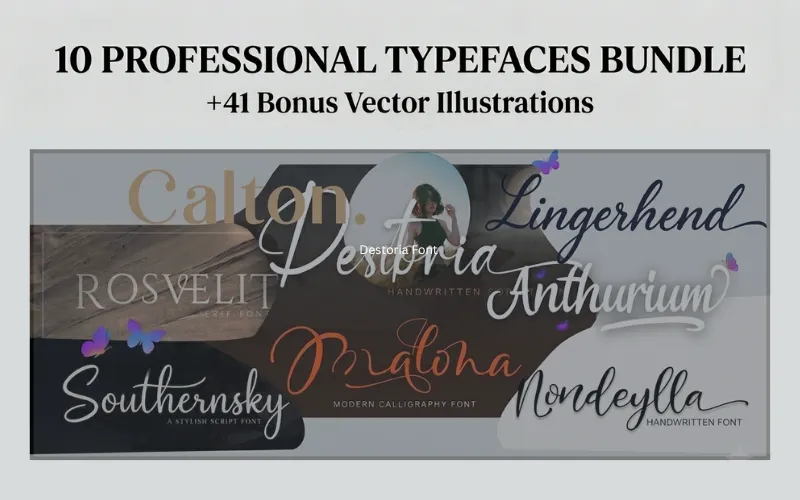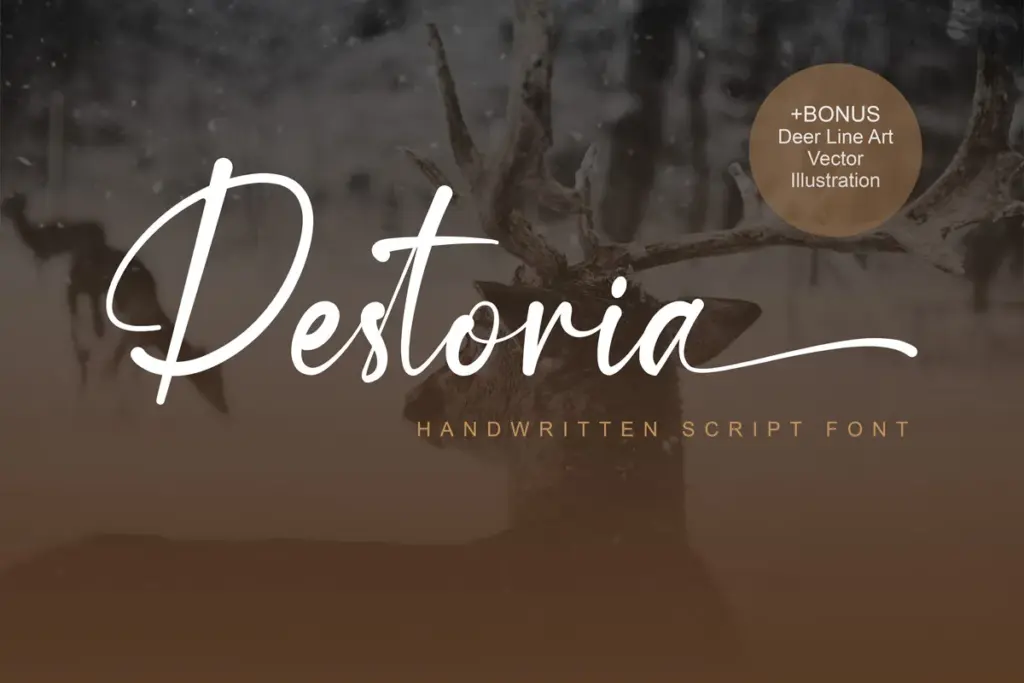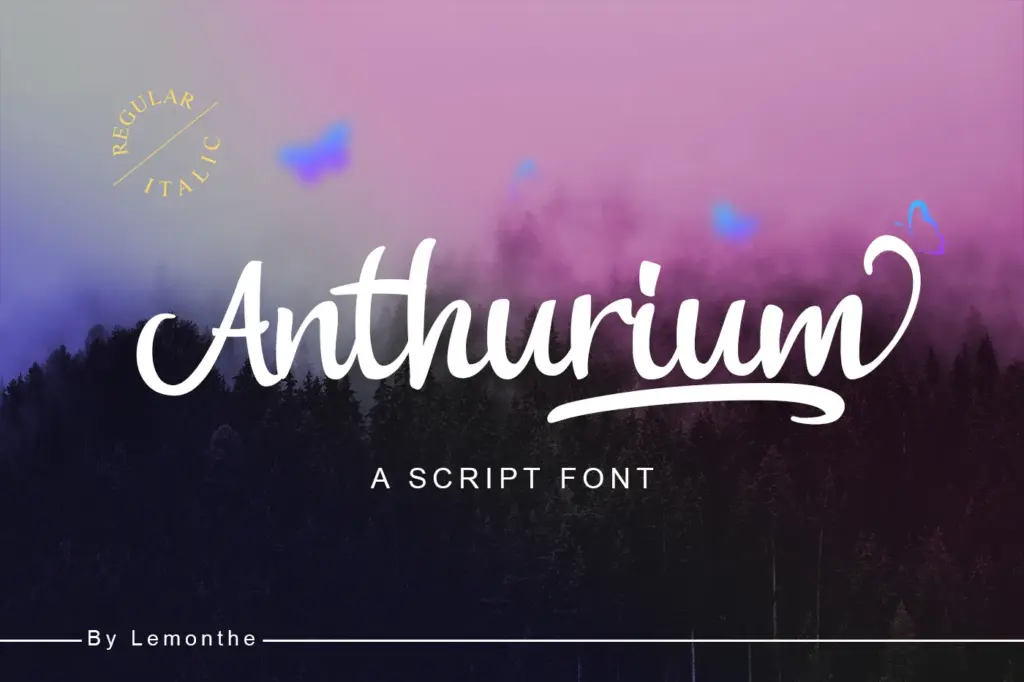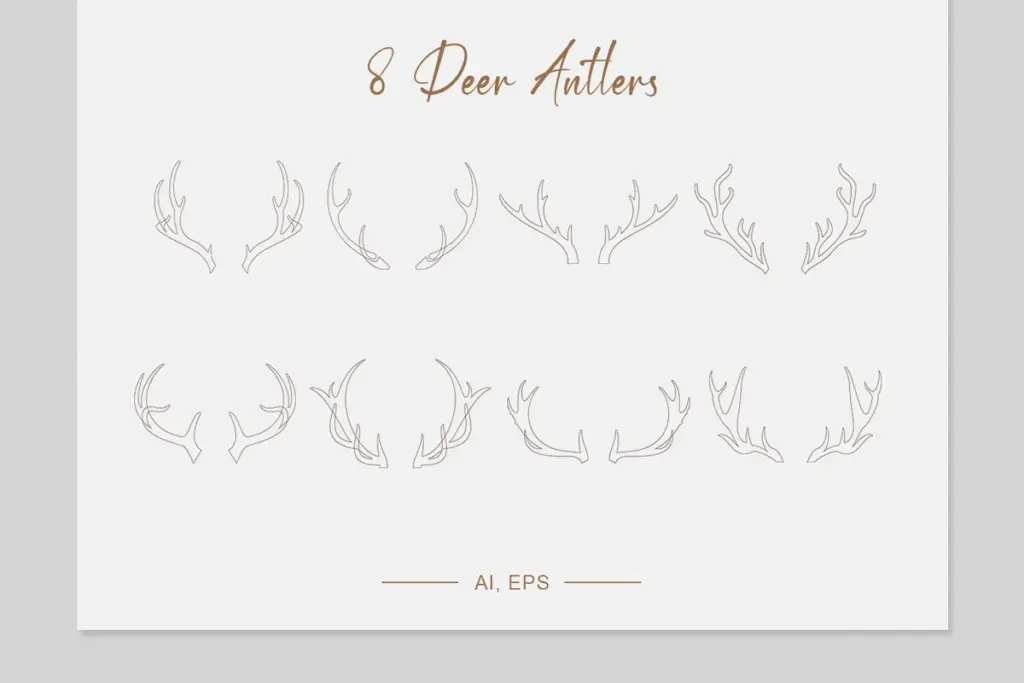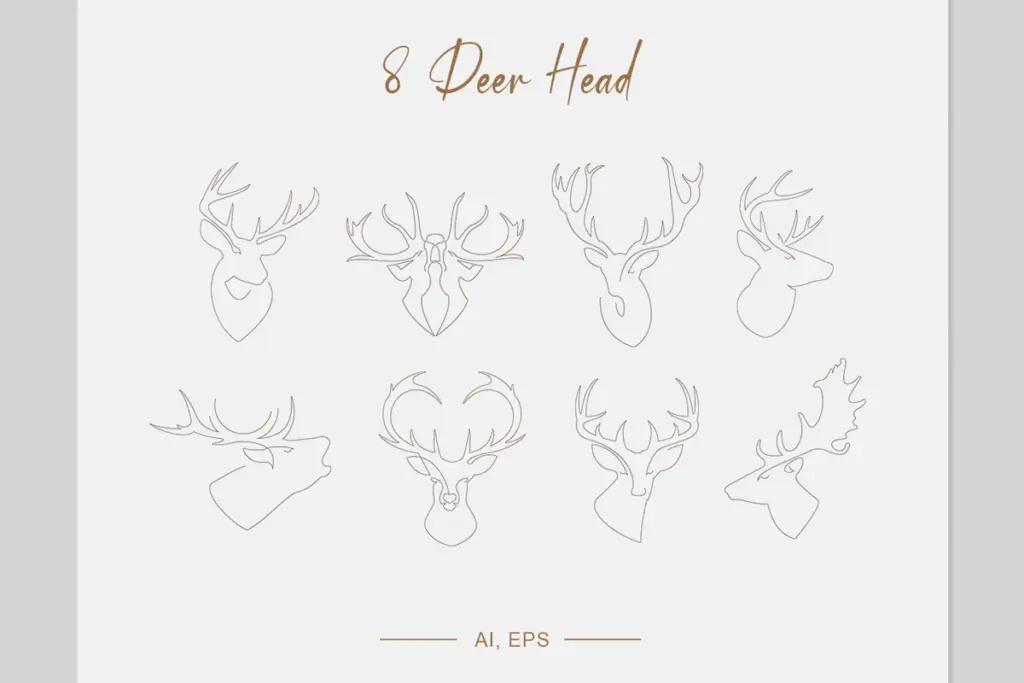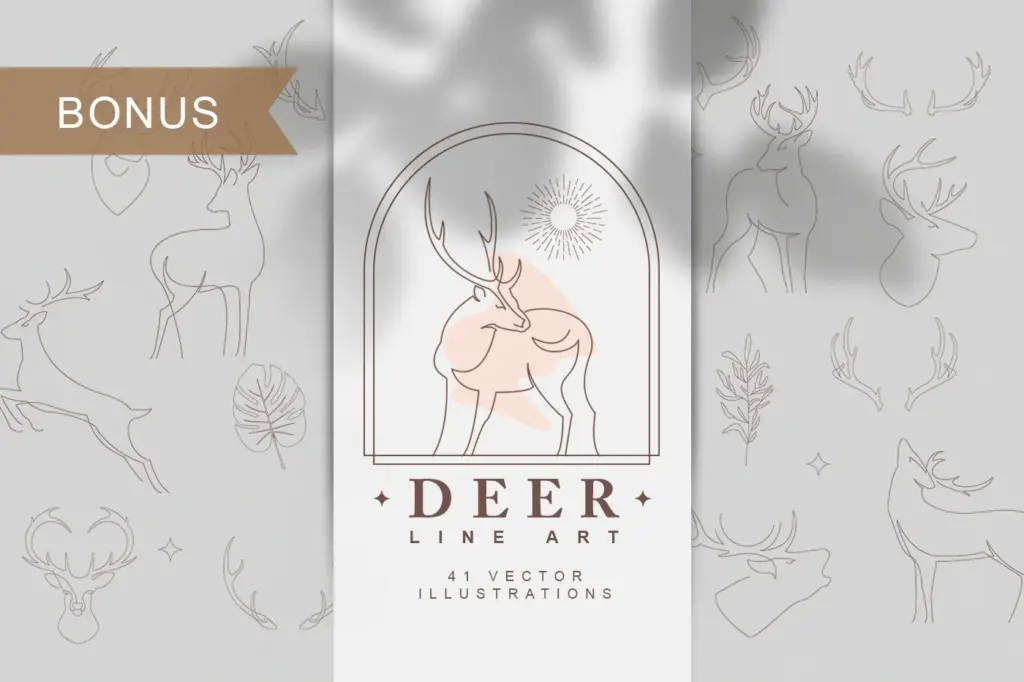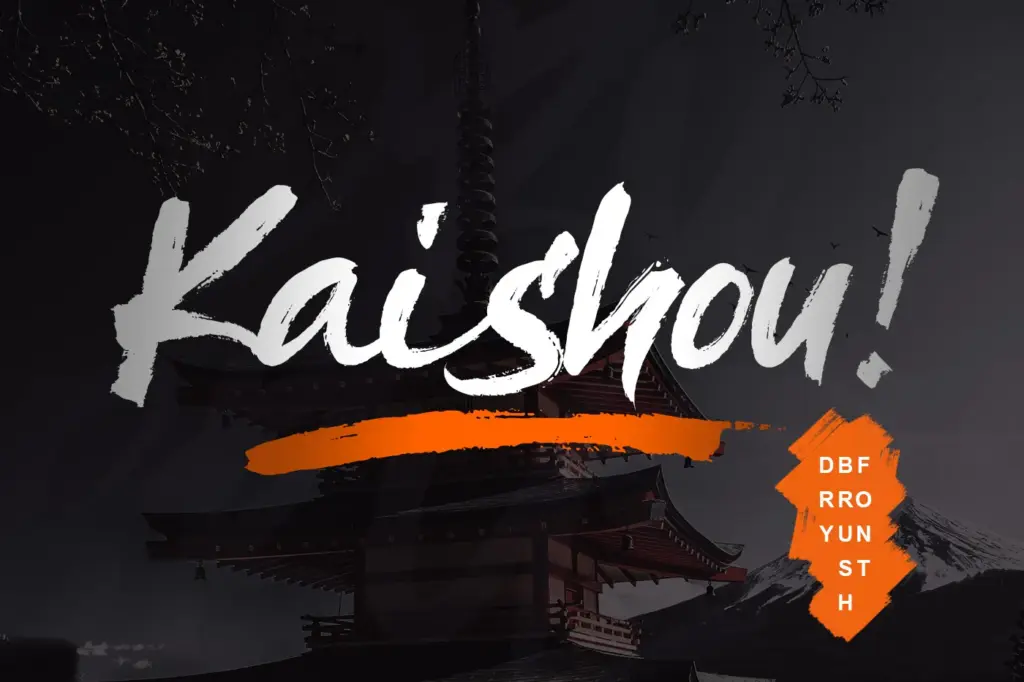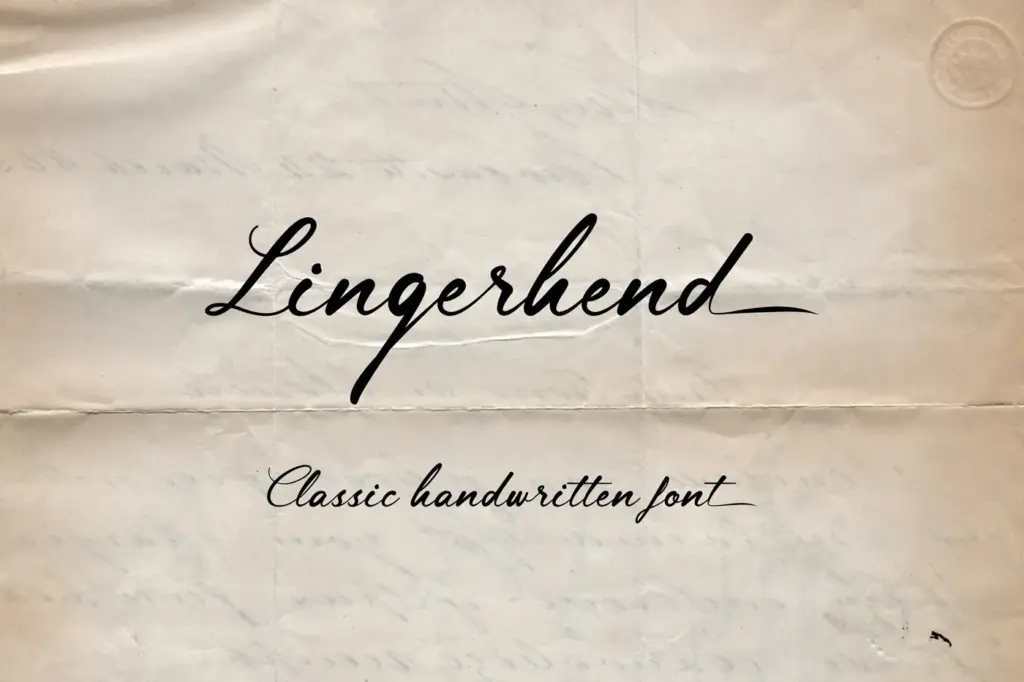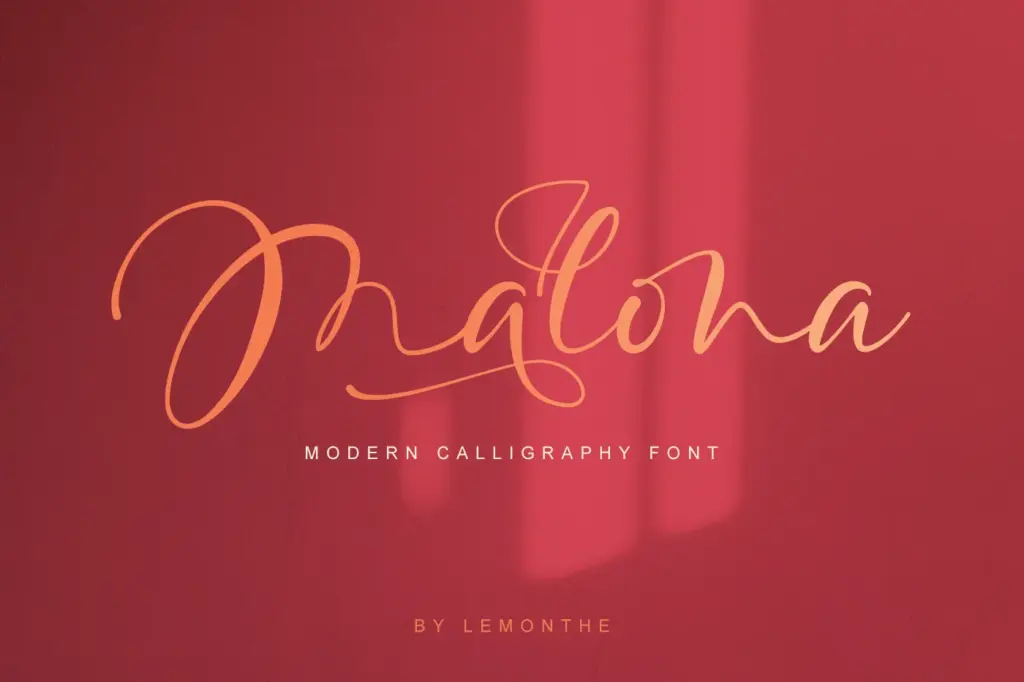
10 Professional Typefaces Bundle
A handpicked set of 10 high-quality typefaces featuring Script, Display, Handwritten, Serif, & Sans-Serif style fonts.
It includes special alternates, swash, & ligatures, supporting English & standard Latin language.
What You Get In This Professional Typefaces Bundle:
Anthurium:
- Modern signature font for sophisticated branding.
Calton Elegance:
- Stylish serif font for high-end editorial designs.
Destoria:
- Modern sans-serif font for clean & minimalist layouts.
Kaishou:
- Bold brush display font for striking creative headlines.
Lingerhend:
- Elegant script font for wedding invitations & luxury logos.
Malona:
- Handwritten script font for personal & organic touches.
Mondeylla:
- Decorative script font for unique & eye-catching crafts.
RosveliT:
- Modern display font for bold & professional visual identities.
Sachi Font Duo:
- Versatile serif & script pairing for perfect typography.
Southernsky:
- Modern script font for trendy social media & apparel.
What You Can Create With This Bundle:
- Custom visual identities & professional letterheads.
- Eye-catching blog headers, stories, & post layouts.
- Stylish T-shirts, souvenirs, & product labels.
- Elegant wedding invitations & personalized greeting cards.
- Professional posters, news layouts, badges, & signage.